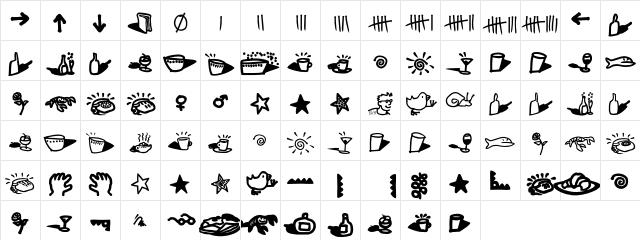
SoupBone Dingbats Free Font
SoupBone Dingbats
Style: Dingbats
SoupBone Family
SoupBone Dingbats
Design Context for SoupBone
SoupBone is a composed and adaptable typeface that performs quietly and consistently across a wide range of design contexts.